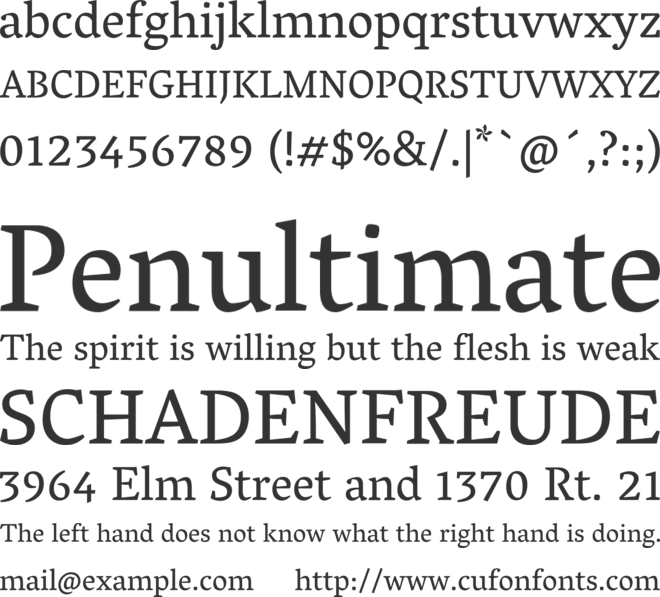
Vesper Devanagari Libre Font Family
Rob Keller & Kimya Gandhi
Vesper Devanagari was began by Rob Keller in 2006, initially inspiring Vesper's Latin letterforms. The Devanagari character set was completed in 2014 through the collaboration with Kimya Gandhi. Vesper has a classical foundation, but with an entirely modern appearance, making reading comfortable, but never boring.
Vesper Libre is a special web version that has been optimized for online use. Tiny details have been simplified and the character set is reduced for the perfect balance of beautiful web typography with fast page loading.